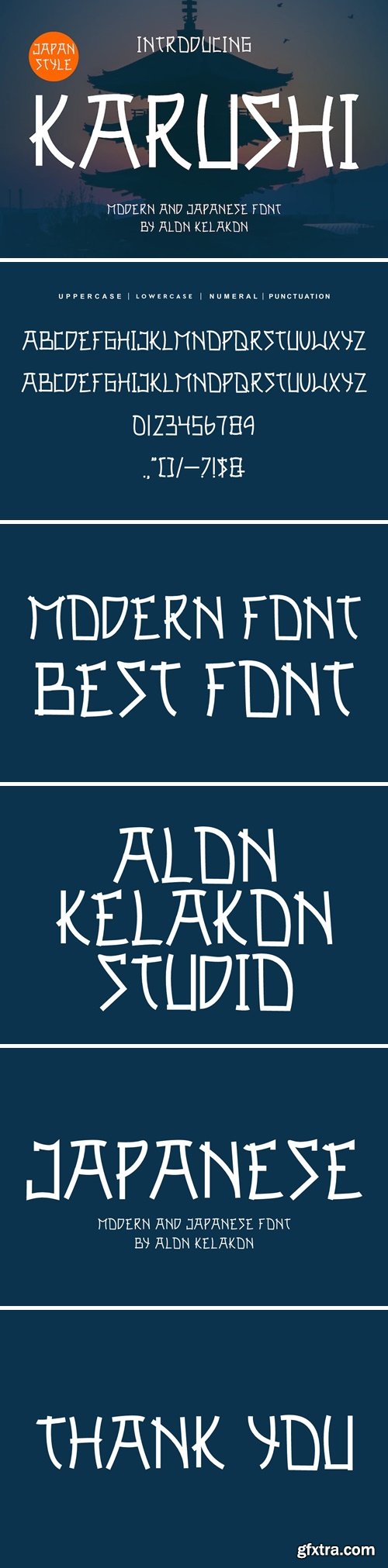
卡鲁斯字体
Karushi Font is unique . Ready to use for your design like labeling, movie sceen, poster, movie title, gigs, album covers, logos, and much more.